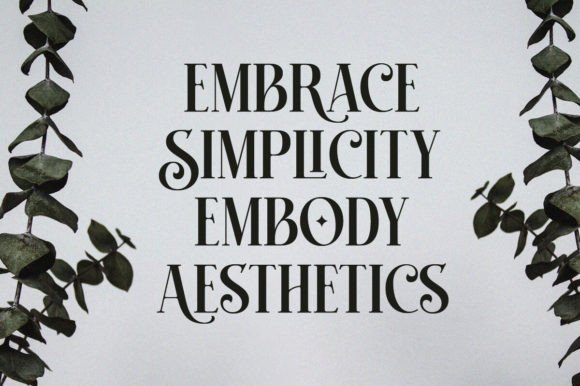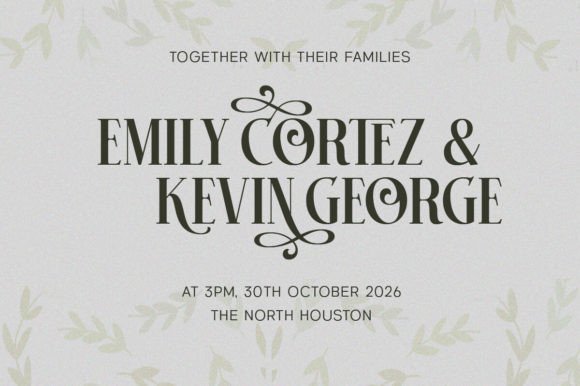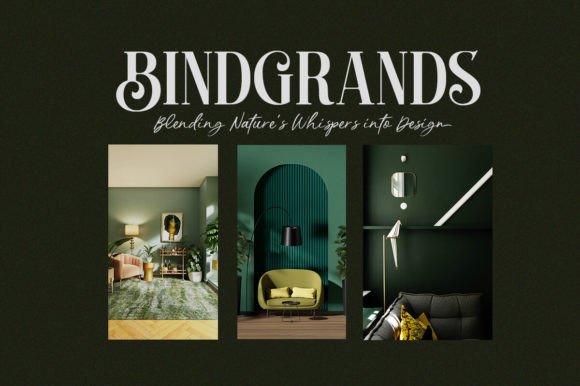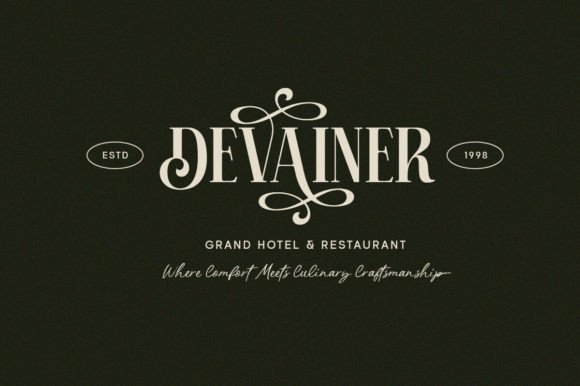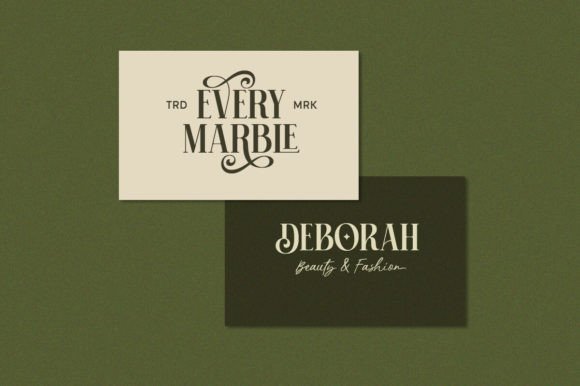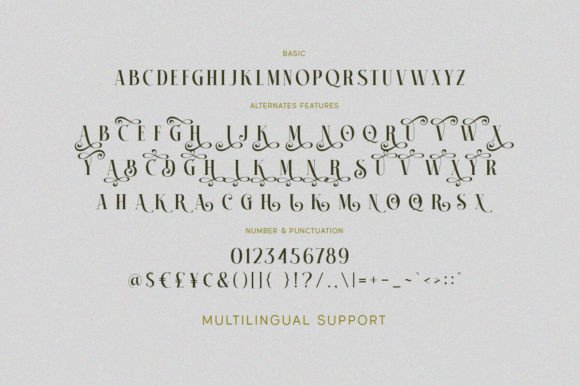
The Designer’s Delight: Uncovering the Elegance of Britnes Grade Font
I’ll never forget the time I was working on a wedding invitation project, and my client asked for a font that exuded elegance and sophistication. I scoured the internet, trying out font after font, but nothing seemed quite right. That was until I stumbled upon Britnes Grade Font. ✨ It was love at first sight! The clean lines, the intricate swirl swashes, and the sheer versatility of this stylish serif font won me over. In this article, I’ll share my experience with Britnes Grade Font, and explore its features, uses, and alternatives.
- ✅ Clean and neat design that’s perfect for formal applications
- ✨ Intricate swirl swashes that add a touch of elegance
- 🔥 Exceptional versatility, suitable for logos, invitations, labels, magazines, and more
- 💻 PUA encoded, making it easy to access all the amazing glyphs and ligatures
While Britnes Grade Font is an excellent choice, there are a few things to keep in mind: ⚠️
- 🤔 Some users may find the font a bit too ornate for very casual projects
- ⚠️ The swashes can be overwhelming if not used judiciously
Britnes Grade Font was designed with the intention of creating a elegant, sophisticated font that would be perfect for formal applications. The designer, Alexandra, drew inspiration from classic serif fonts, but added a modern twist with the intricate swirl swashes. “I wanted to create a font that would make designers feel like they’re working with a luxury brand,” she says. “Britnes Grade Font is perfect for anyone who wants to add a touch of elegance to their project.”
A: PUA (Private Use Area) encoding is a way of encoding fonts that allows for easy access to glyphs and ligatures. With Britnes Grade Font, this means you can easily access all the amazing swashes and alternates.
Q: Is Britnes Grade Font suitable for body text?
A: While Britnes Grade Font is elegant and sophisticated, it’s best used for headings, titles, or short paragraphs. For body text, you may want to choose a font with better readability.